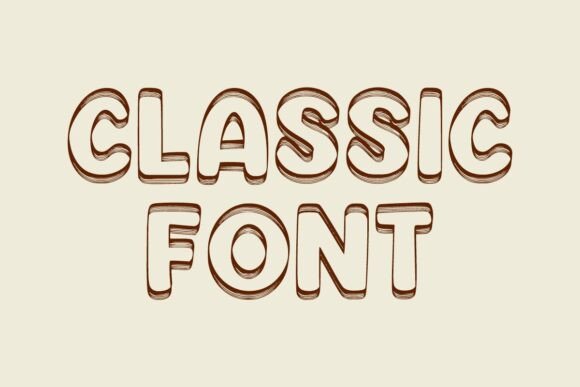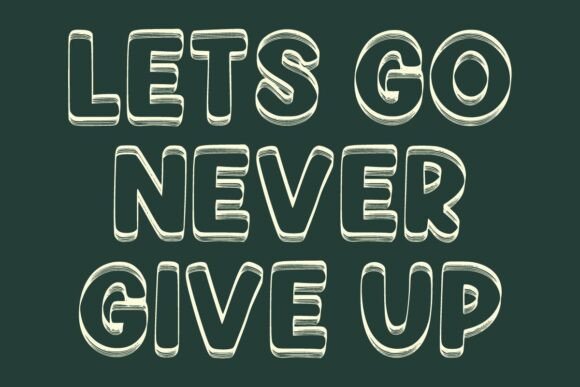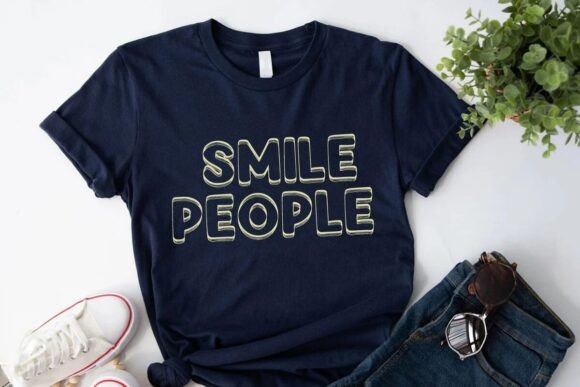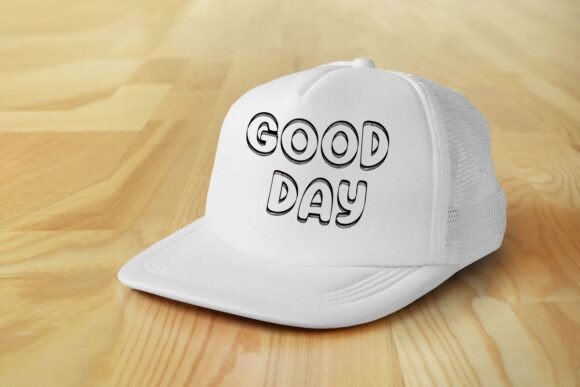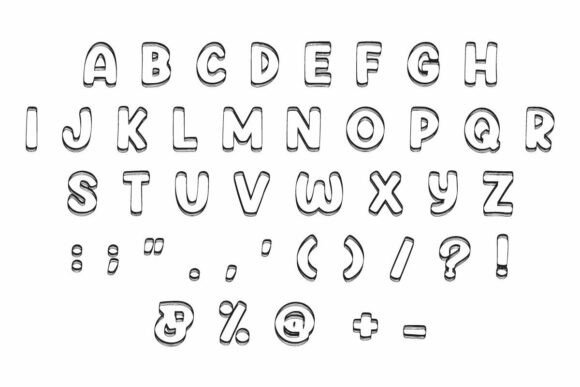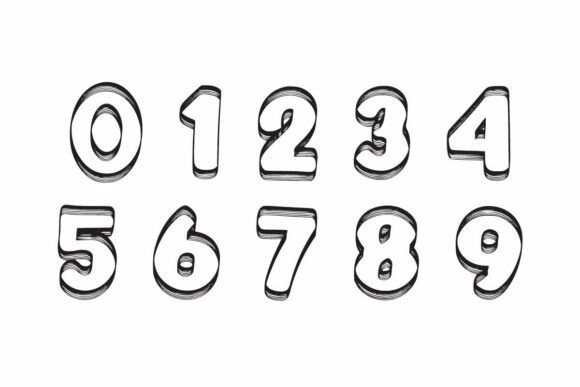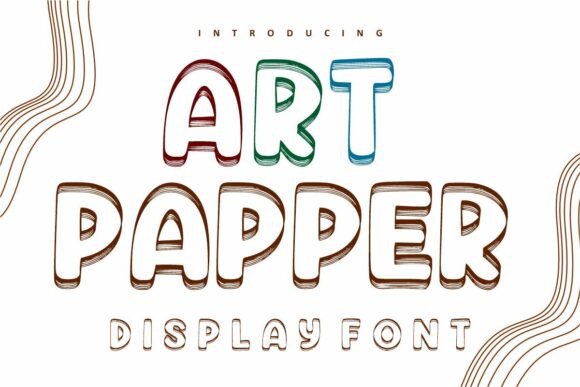
Introducing Art Papper Font: The Ultimate Choice for Creative Designs
Are you a designer or crafter looking for a unique and playful font to elevate your creative projects? Look no further than Art Papper Font, a fun 3D display font that is sure to capture attention. With its hollow, paper-like style and bold design, Art Papper Font is perfect for creating eye-catching titles, posters, and logos that stand out from the crowd.
The Unique Features of Art Papper Font
Art Papper Font boasts a distinctive design that sets it apart from other fonts. Its letters are crafted to resemble folded paper, giving them a 3D appearance that is both modern and playful. The hollow design of the font adds a touch of sophistication, making it suitable for a wide range of creative projects. Whether you’re designing a poster, logo, or title, Art Papper Font is sure to add a unique touch to your work.
Key Benefits of Using Art Papper Font
• Bold and Creative Design: Art Papper Font features a bold and creative design that is sure to grab attention. Its unique 3D appearance makes it perfect for creating eye-catching titles and posters.
• Playful and Modern Feel: The folded paper design of Art Papper Font gives it a playful and modern feel that is perfect for creative projects.
• Versatile: Art Papper Font is versatile and can be used for a wide range of creative projects, including titles, posters, logos, and more.
• Easy to Read: Despite its unique design, Art Papper Font is easy to read, making it perfect for titles and headings.
How to Use Art Papper Font in Your Designs
• Use it for Titles and Headings: Art Papper Font is perfect for titles and headings. Use it to add a bold and creative touch to your designs.
• Experiment with Colors: Art Papper Font looks great in a variety of colors. Experiment with different colors to find the one that works best for your design.
• Combine it with Other Fonts: Art Papper Font can be combined with other fonts to create a unique and interesting design.
Why Designers and Crafters Love Art Papper Font
Designers and crafters love Art Papper Font for its unique and playful design. It’s perfect for creating eye-catching titles and posters that stand out from the crowd. The font is also versatile and can be used for a wide range of creative projects. Here are a few reasons why designers and crafters love Art Papper Font:
• Unique Design: Art Papper Font features a unique design that sets it apart from other fonts.
• Versatile: Art Papper Font is versatile and can be used for a wide range of creative projects.
Art Papper Font is a fun and creative font that is perfect for designers and crafters. Its unique 3D design and hollow, paper-like style make it great for creating eye-catching titles, posters, and logos. With its bold and creative design, Art Papper Font is sure to add a unique touch to your creative projects. So why wait? Download Art Papper Font today and start creating amazing designs!